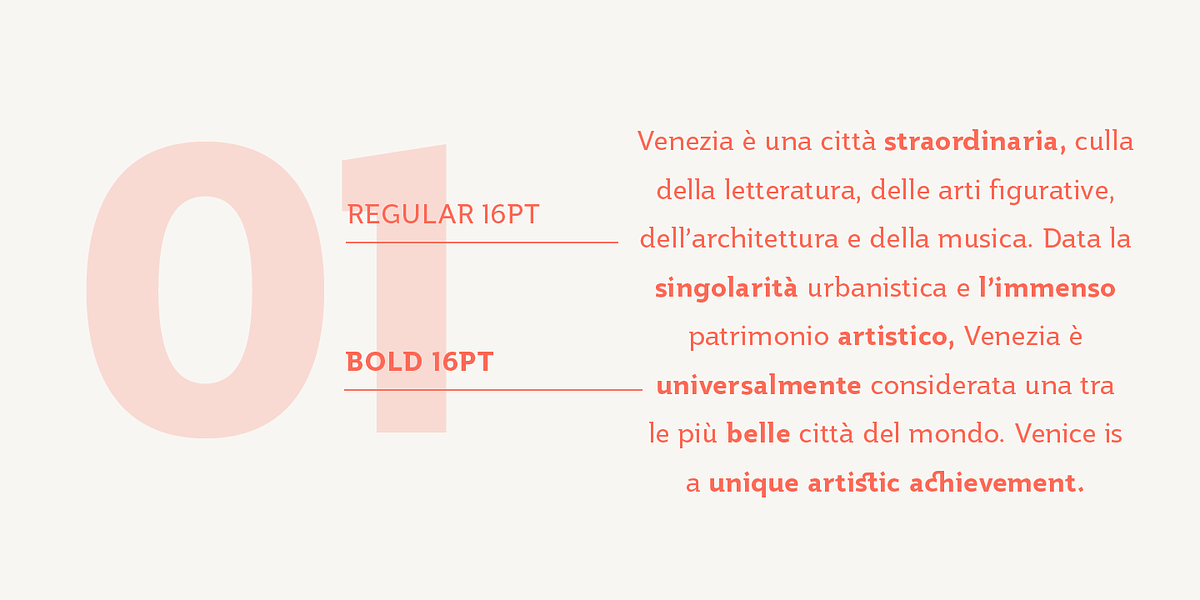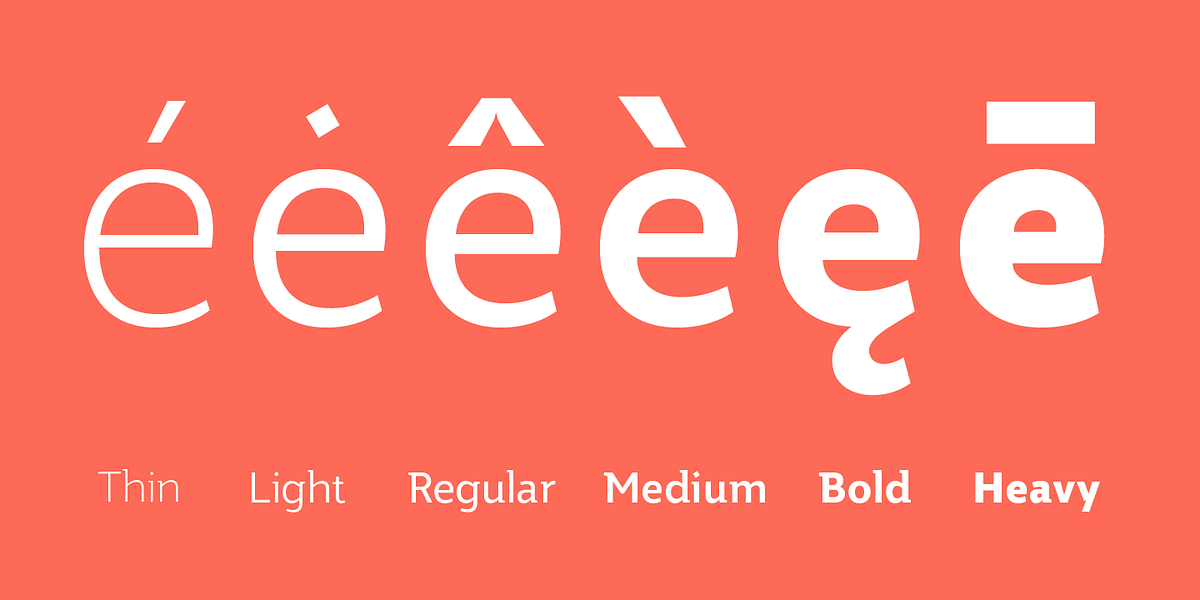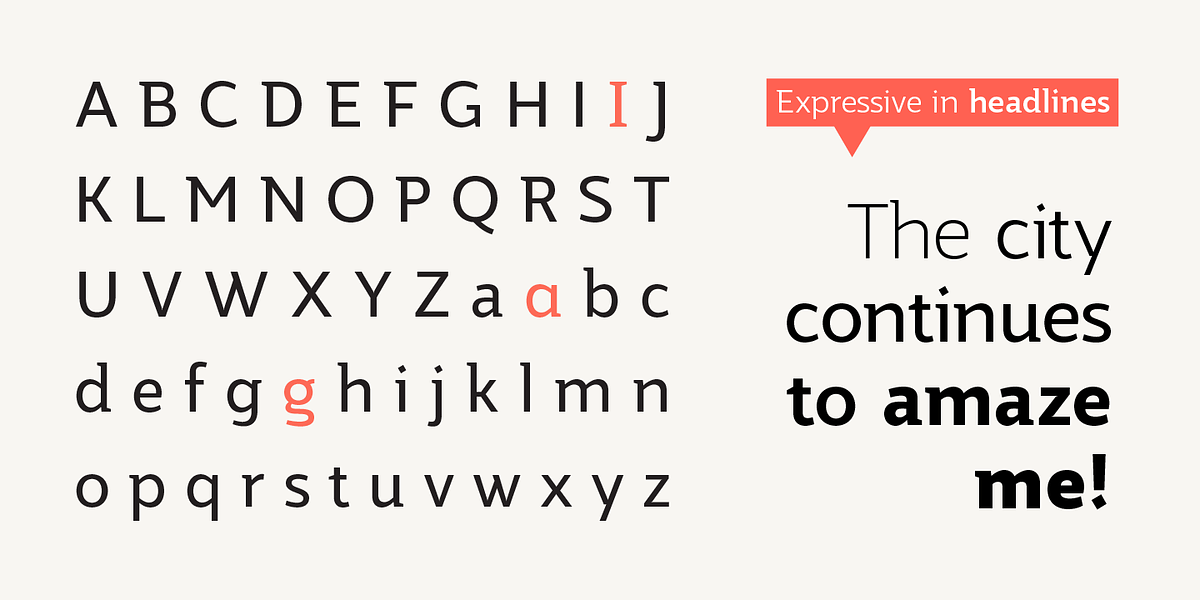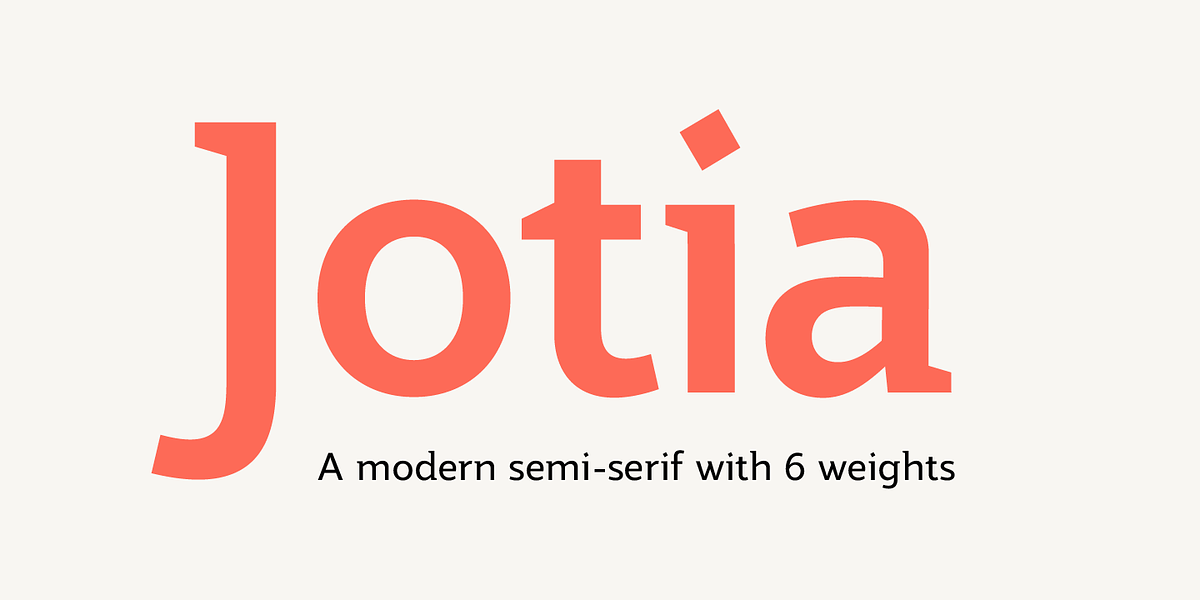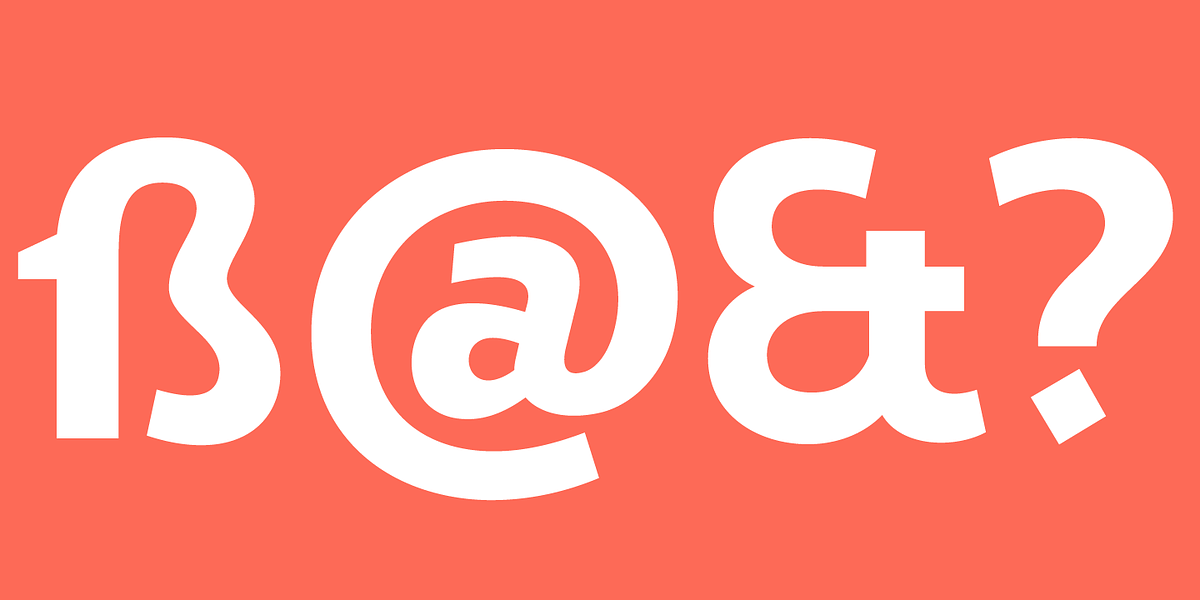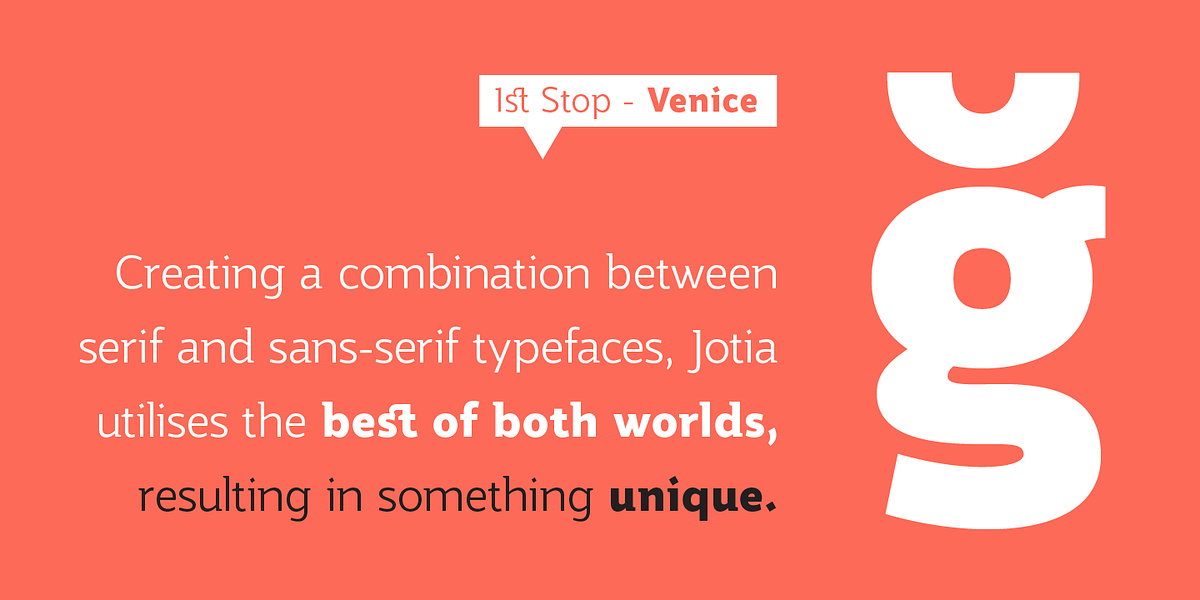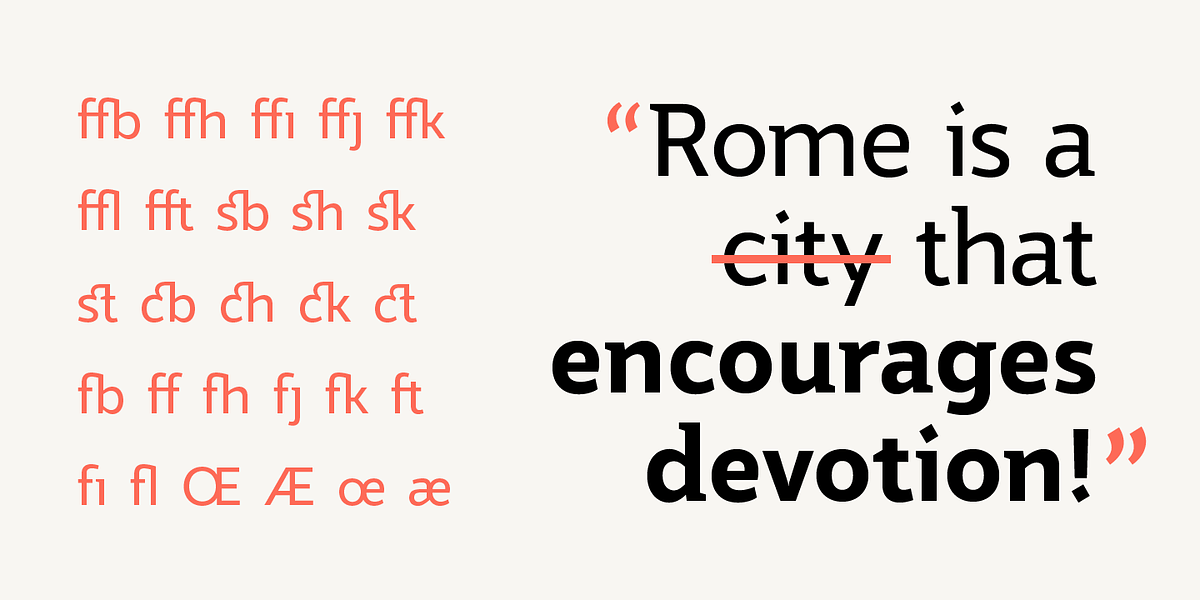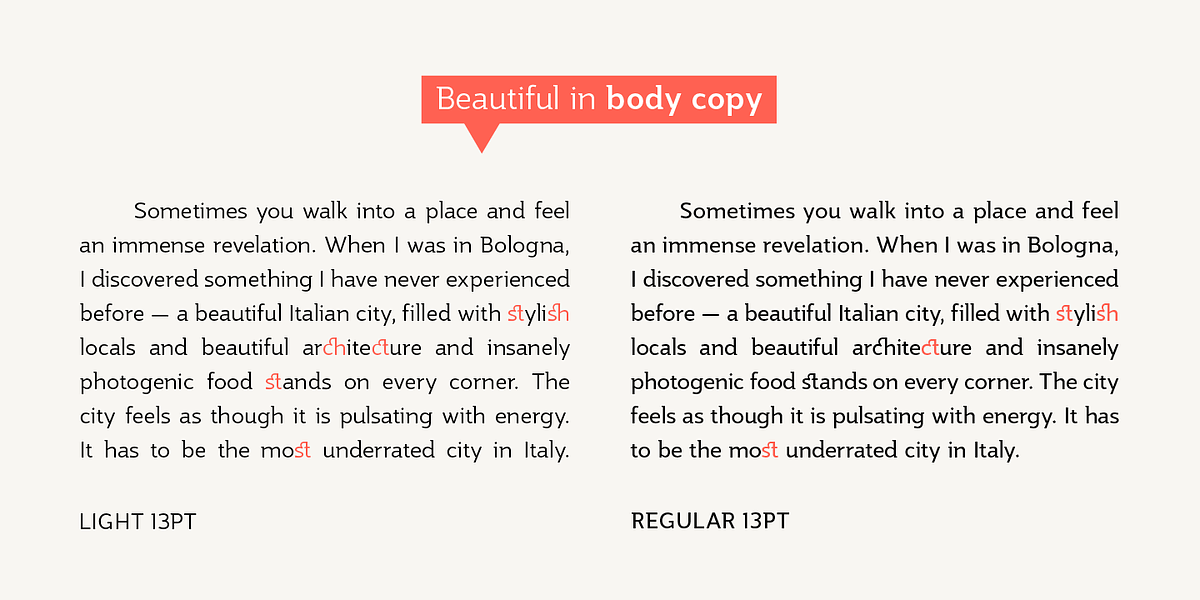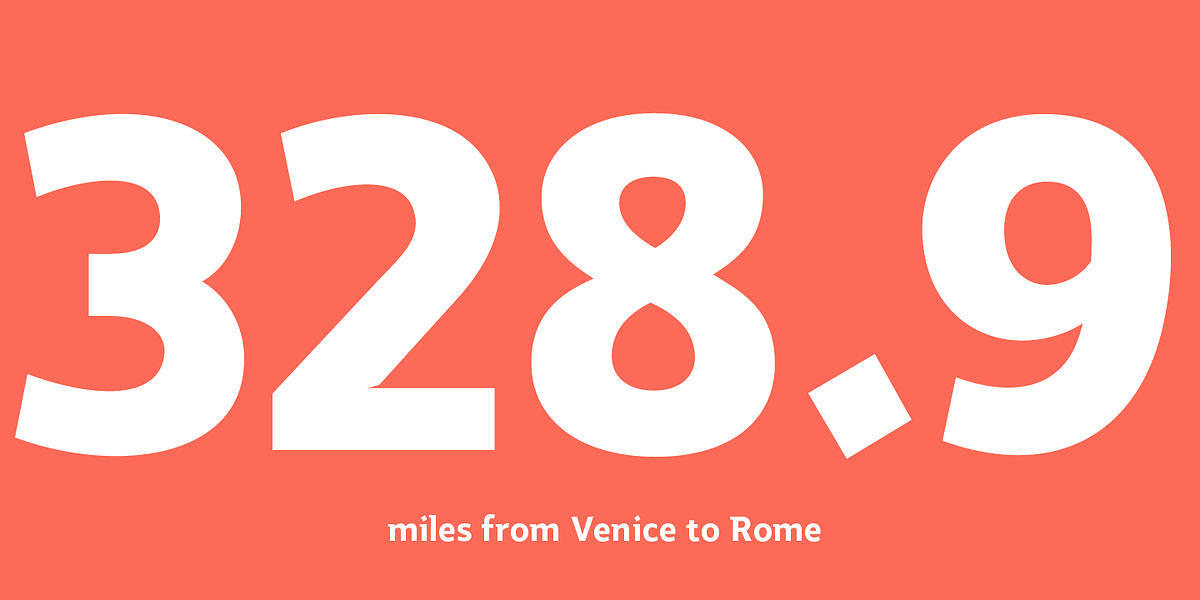
Jotia
Jotia is a neo-humanist sans serif font that draws inspiration from lapidary inscriptions. Its design features triangular serif details, resulting in a strong and unified personality while maintaining clear legibility. This versatility allows Jotia to excel in both headlines and body text applications, whether printed or onscreen. The font family includes six weights, a full European character set, manual kerning and spacing, ligatures, and alternates.